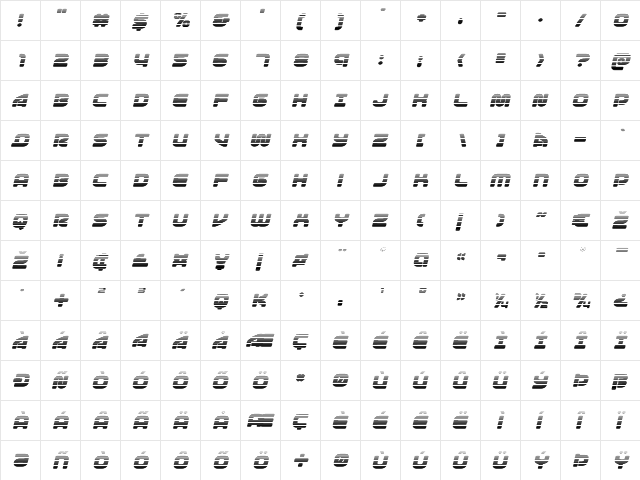
1st Enterprises Gradient Italic Italic
Design Context for 1st Enterprises Gradient Italic Typeface
1st Enterprises Gradient Italic offers clean, dependable letterforms without strong stylistic allegiance, making it a practical choice for designers who need flexibility. Its italic angle brings a sense of urgency and motion to the letterforms.
Pro Tip: Use 1st Enterprises Gradient Italic for emphasis, pull quotes, and subheadings where its slanted energy can add rhythm to the layout.